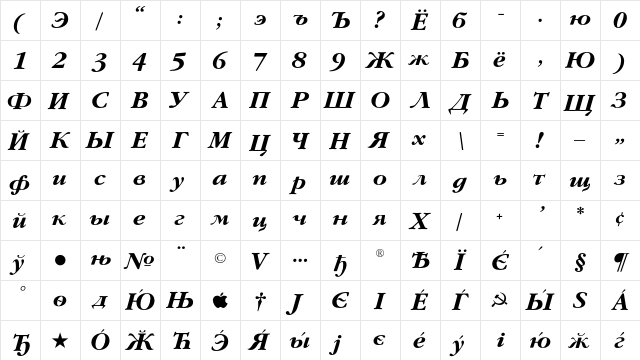
GaramondFLFCyrillic-BolIta Regular Font Preview
GaramondFLFCyrillic-BolIta Regular
GaramondFLFCyrillic-BolIta Regular Font Details
Design Context for GaramondFLFCyrillic-BolIta Typeface
GaramondFLFCyrillic-BolIta offers clean, dependable letterforms without strong stylistic allegiance, making it a practical choice for designers who need flexibility.